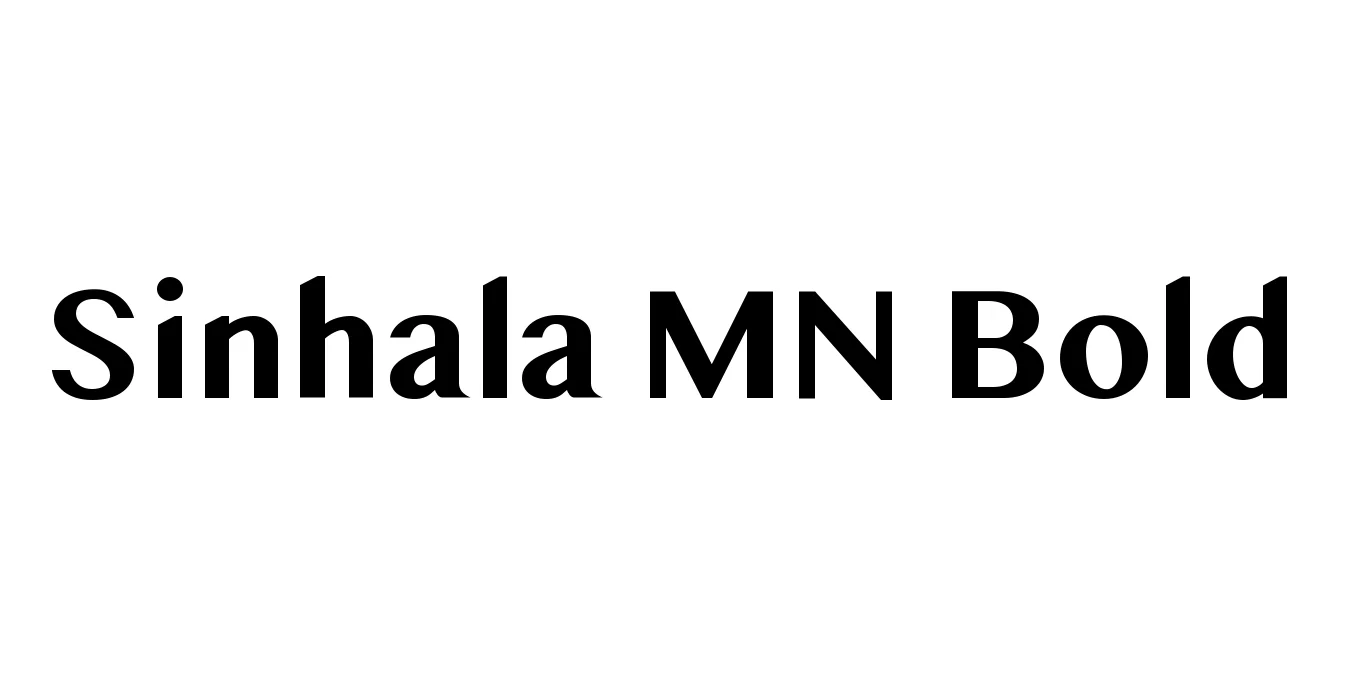
Sinhala MN Bold
Designed by Muthu Nadarajah
Sinhala MN Bold is a professional and highly legible typeface designed specifically for the Sinhala script, widely used in Sri Lanka. Originally developed as a system font for Apple's macOS and iOS platforms, it was crafted to provide a clean and modern digital experience for native speakers. The Bold weight of this family focuses on high visibility and structural clarity, making it an essential choice for digital interfaces where readability is paramount.
This typeface adheres strictly to Unicode standards, ensuring seamless compatibility across modern web browsers and software applications. Its design balances the traditional aesthetic of Sinhala calligraphy with the requirements of contemporary screen technology. Whether used for mobile application UI or localized web content, Sinhala MN Bold offers a sophisticated look that maintains the cultural integrity of the script while providing a robust typographic solution.
Sinhala MN Bold Best Uses
Ideal for clear and readable user interface elements in localized applications.
The thick weight makes it perfect for striking titles and emphasized headers.
Ensures professional and accessible display of Sinhala text on modern websites.
Great for textbooks and guides requiring clear, bolded script for better comprehension.